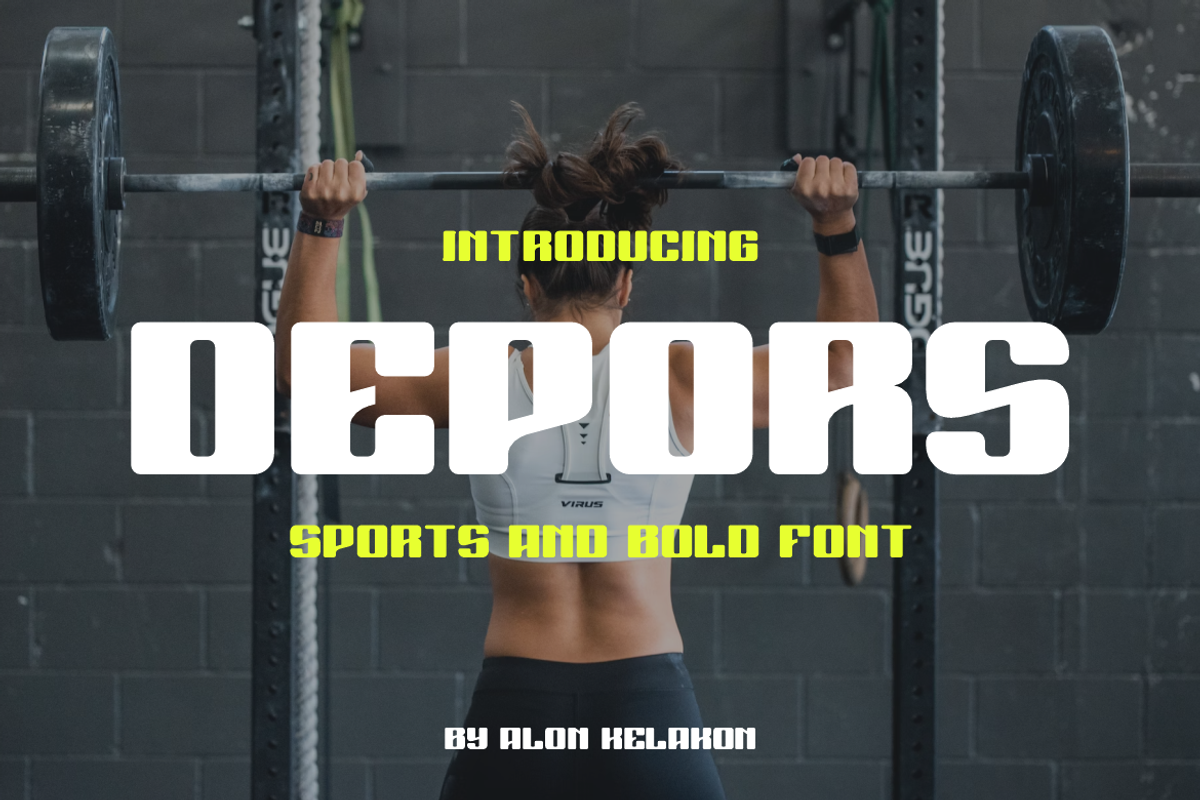
Depors Font Free Download is a bold and sporty display typeface designed for power, energy, and impact. With strong lines, solid curves, and a dynamic presence, this font is perfect for sports branding, team logos, athletic apparel, event posters, and any design that needs to deliver strength and confidence.
Whether you're designing for a gym, an esports team, or a competitive brand, Depors Font Free Download offers versatility and boldness in every character. Its clean structure ensures readability while still bringing a punchy, competitive edge to headlines and logos.